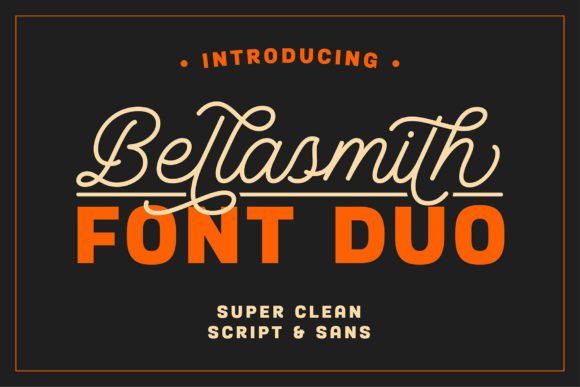
Journey into the world of elegance and grace with Bellasmith Font, a captivating font duo that blends the allure of a handwritten script with the poise of a refined sans serif. Step into a creative realm where your designs flourish with the beauty of personalized expression.
Bellasmith Font: The Epitome of Cursive Splendor
Take your designs to new heights with Bellasmith Font's enchanting script typeface. Its delicate strokes mimic the graceful flow of penmanship, exuding a touch of individuality and charm. Each character dances across the page like a symphony of flowing lines, capturing the essence of artistry and creativity. Let your words become works of art as they adorn restaurant menus, product packaging, and greeting cards, leaving a lasting impression on your audience.
Introducing Bellasmith Sans: A Symphony of Modernity
Complementing the script's charm is Bellasmith Sans, a sophisticated sans serif font that exudes a sense of modern elegance. Its clean lines and balanced proportions provide a solid foundation for your designs, allowing the script's beauty to shine even brighter. This harmonious pairing offers endless possibilities for creating logos, branding materials, and social media graphics that exude both professionalism and creativity.
Dive into a Sea of Endless Creative Possibilities
With Bellasmith Font at your fingertips, unleash your imagination and explore a boundless ocean of creative opportunities. Design wedding invitations that capture the essence of romance, create social media posts that pop with personality, or craft eye-catching posters that demand attention. Bellasmith Font is your versatile companion, adapting seamlessly to a multitude of projects, each time delivering a touch of sophistication and originality.
Bellasmith Font: Your Gateway to Design Excellence
Bellasmith Font is more than just a font; it's an invitation to elevate your designs to new heights. Its enchanting script and polished sans serif partner provide a dynamic duo that transforms your creative visions into tangible masterpieces. Join the ranks of design enthusiasts who have discovered the transformative power of Bellasmith Font and embark on a journey of innovation and artistic expression.